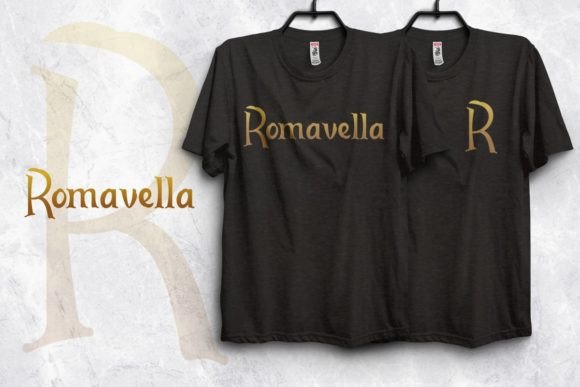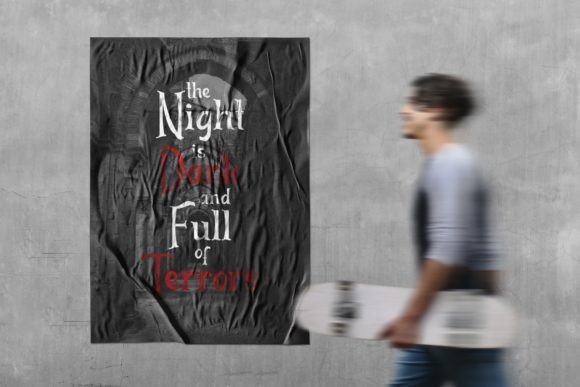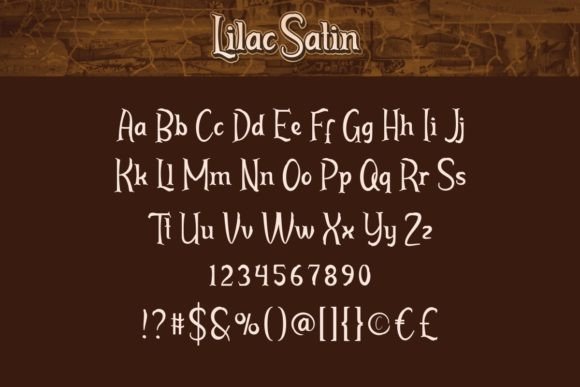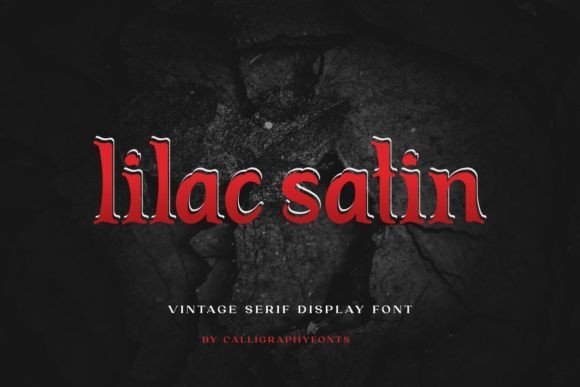
Introduction to Lilac Satin Font
Lilac Satin Font is a unique vintage serif display font created by CalligraphyFonts.
This font has a gothic shape with an authentic vibe that would be perfect for projects, such as labels, literary headers, rock music posters, signage, stationery, t-shirt design, vinyl cover, and anything that needs a classic yet mysterious touch to your creative projects .